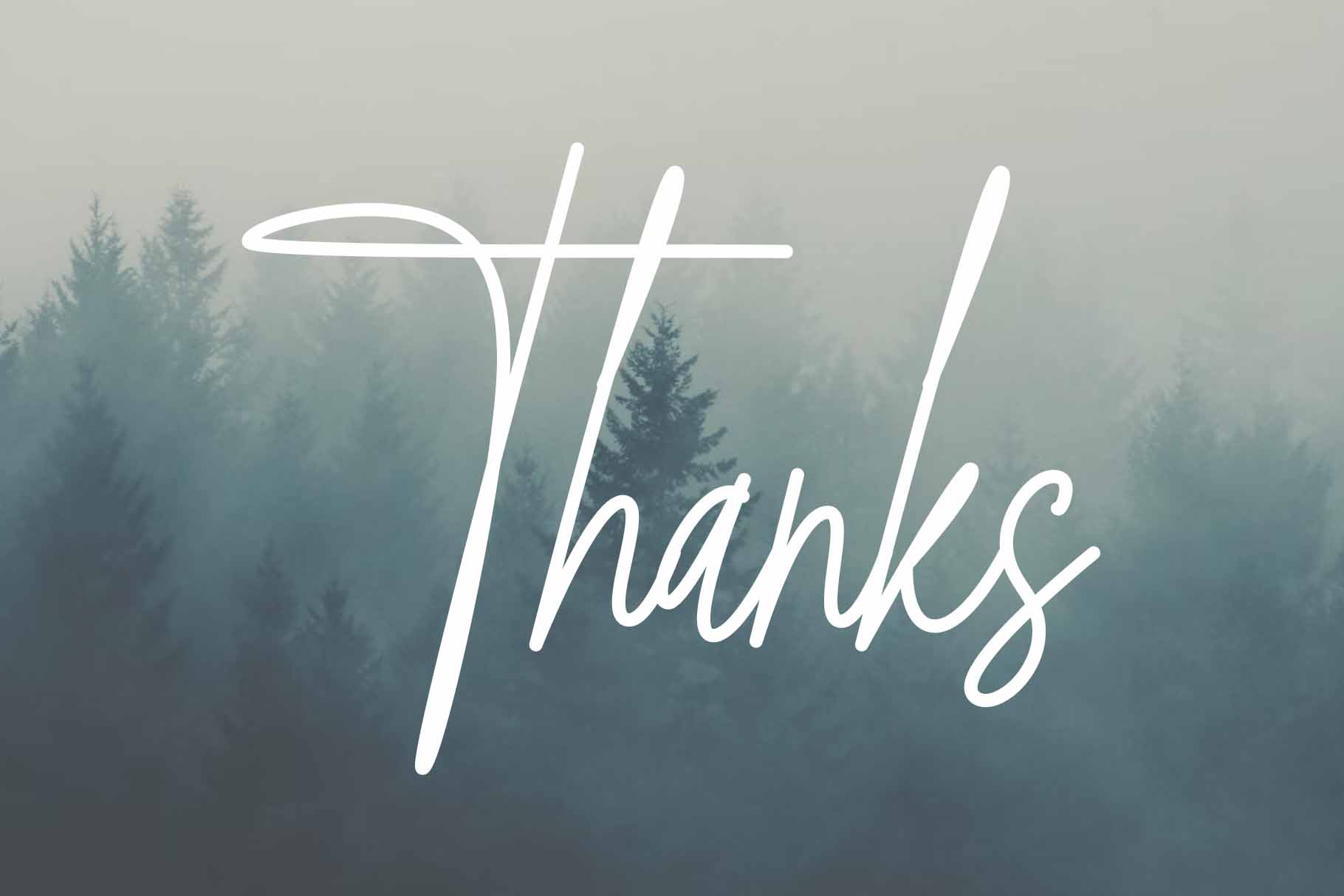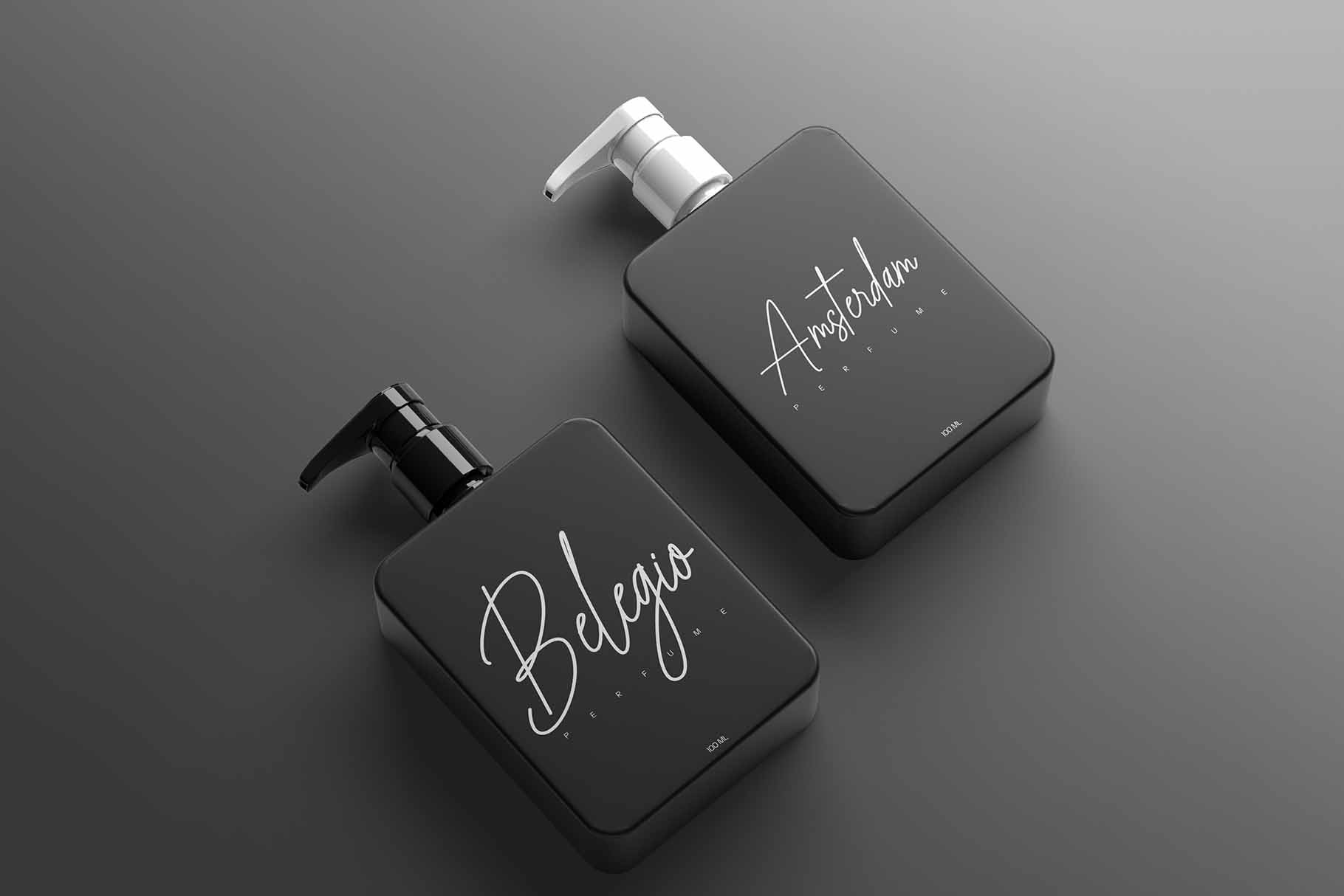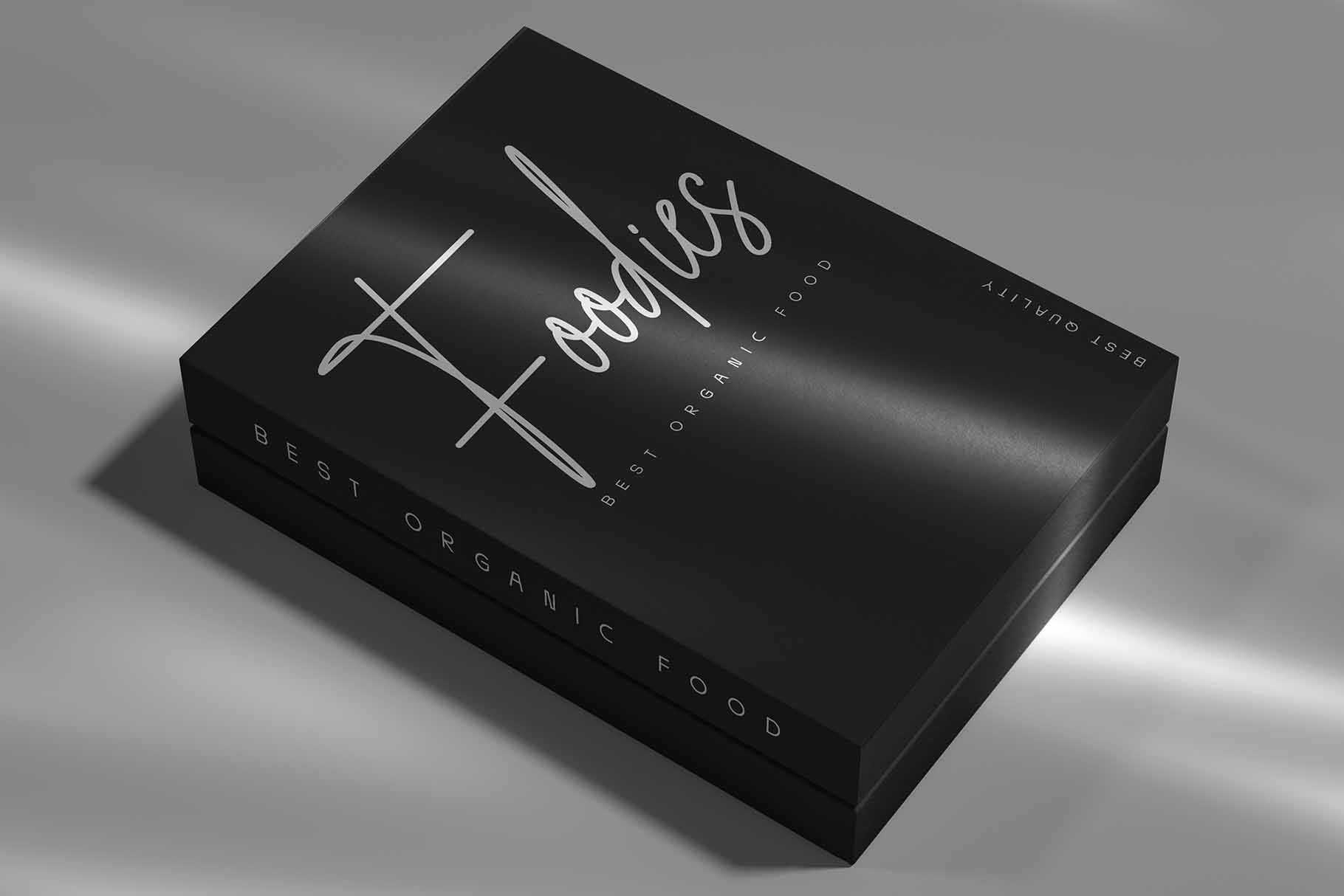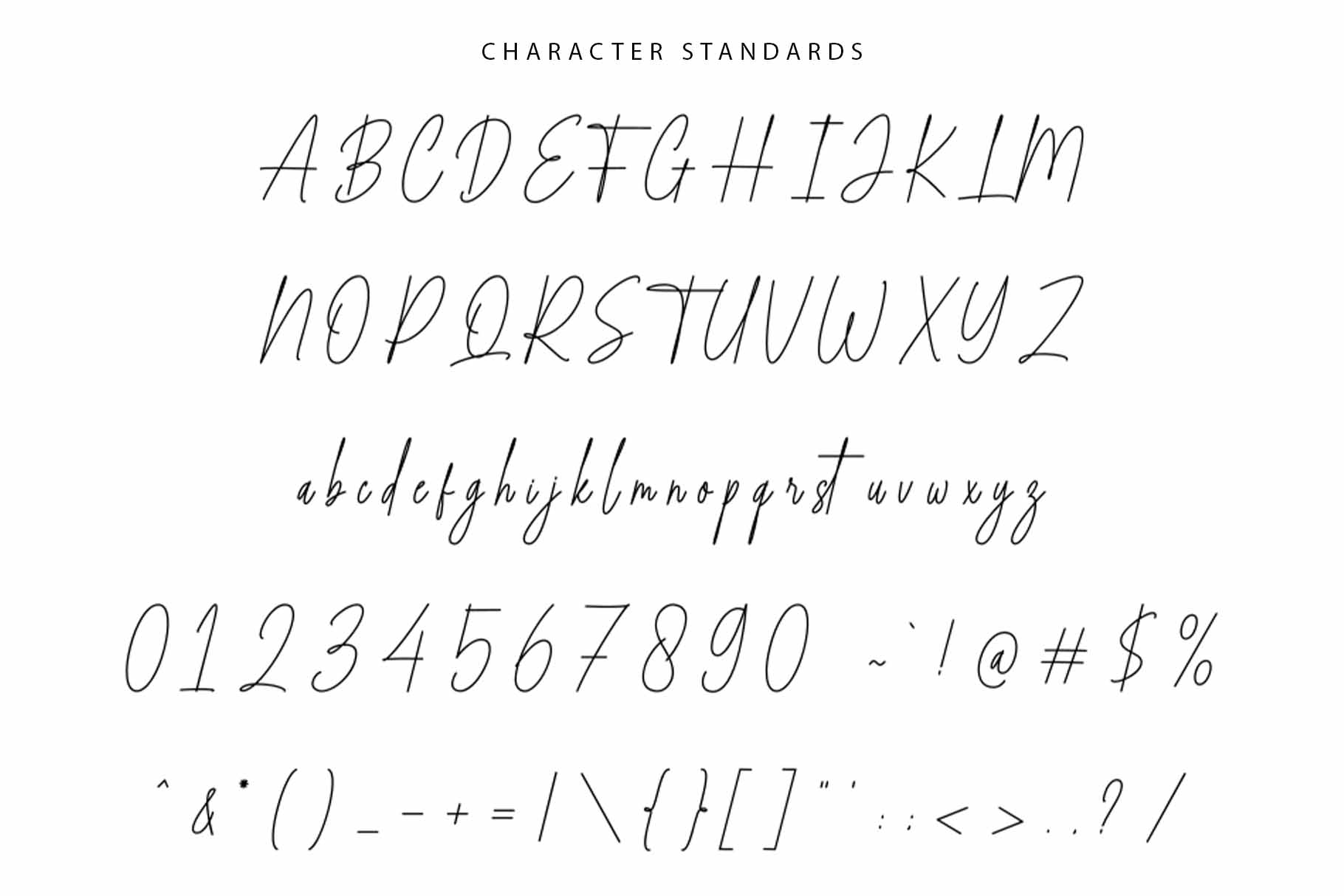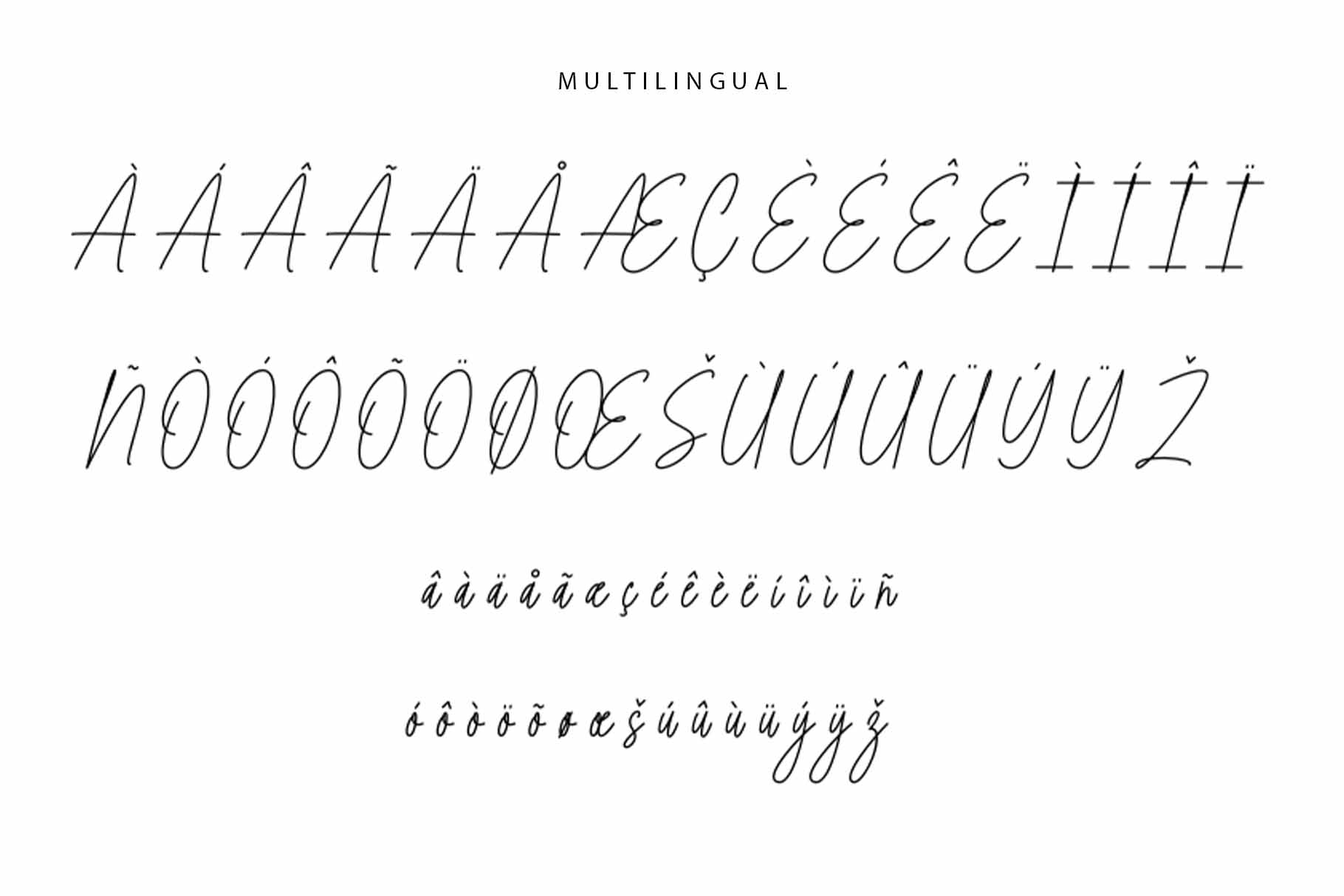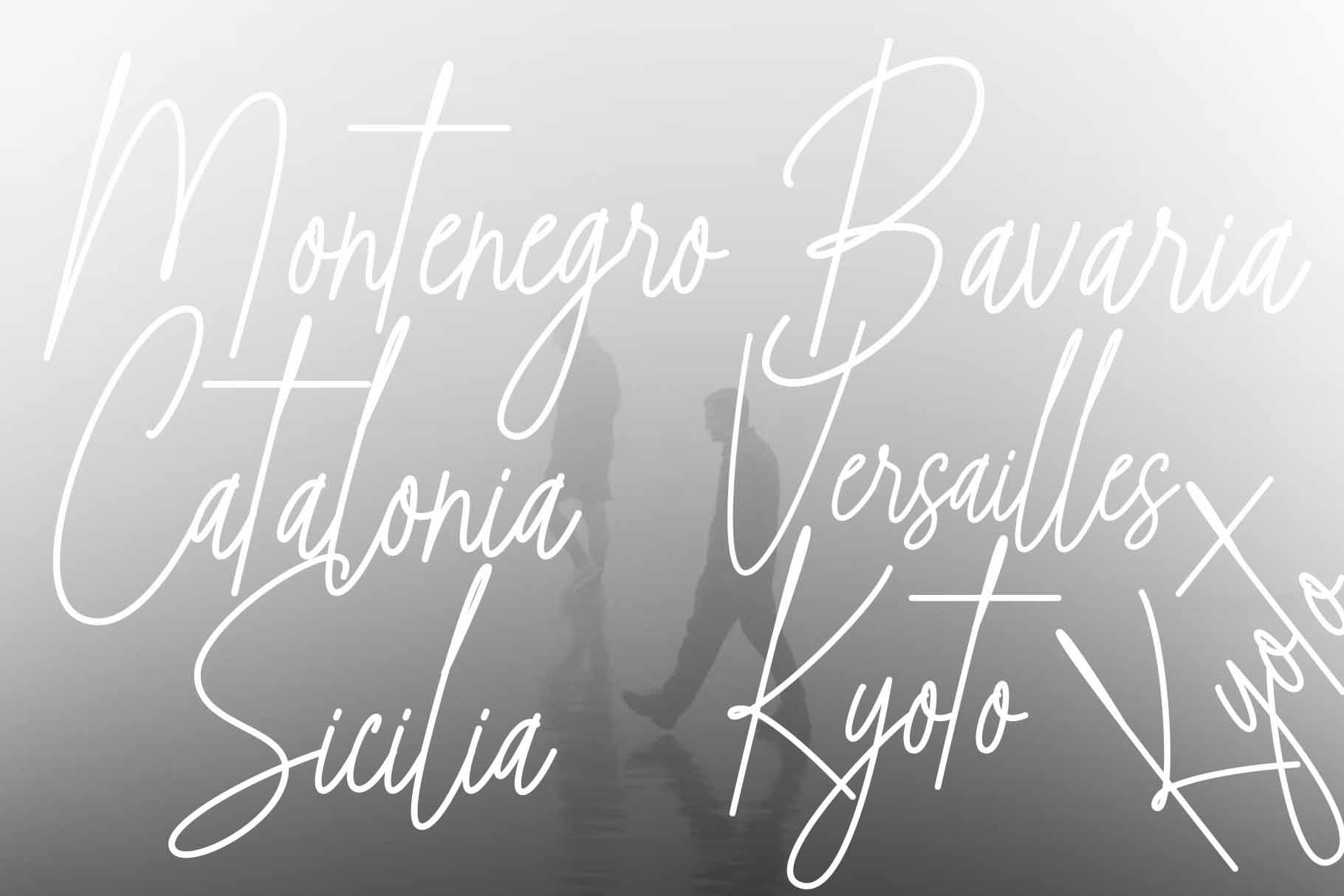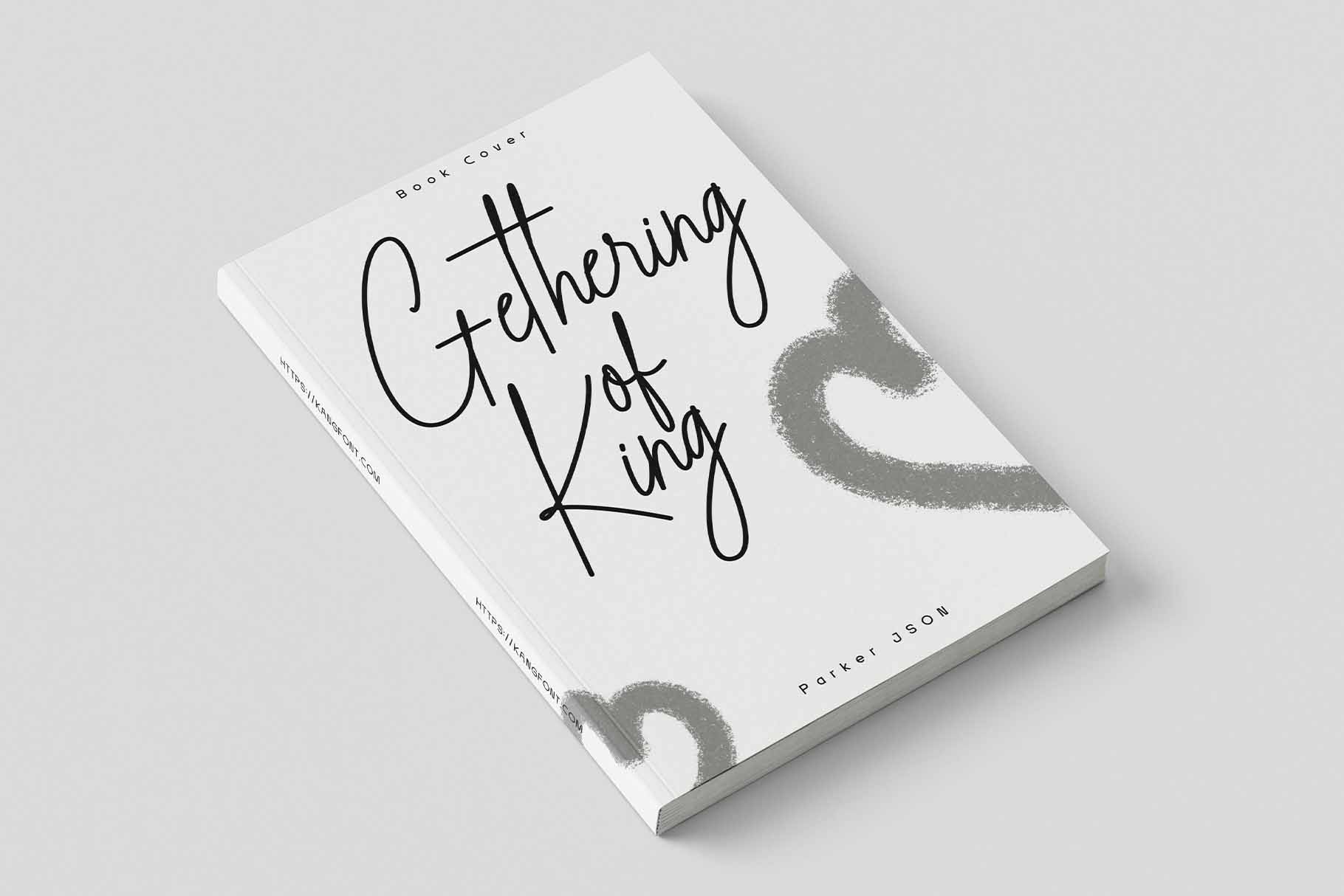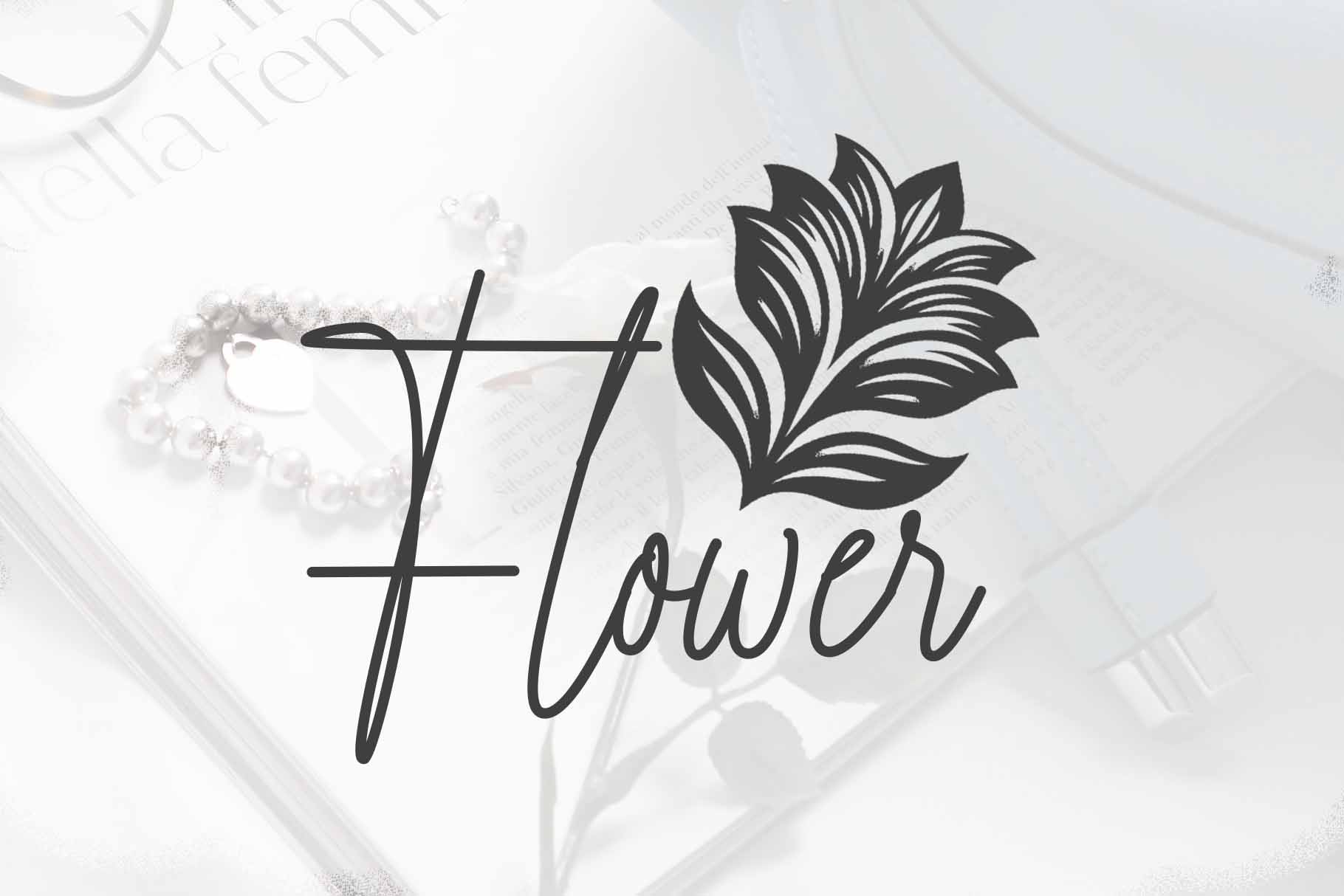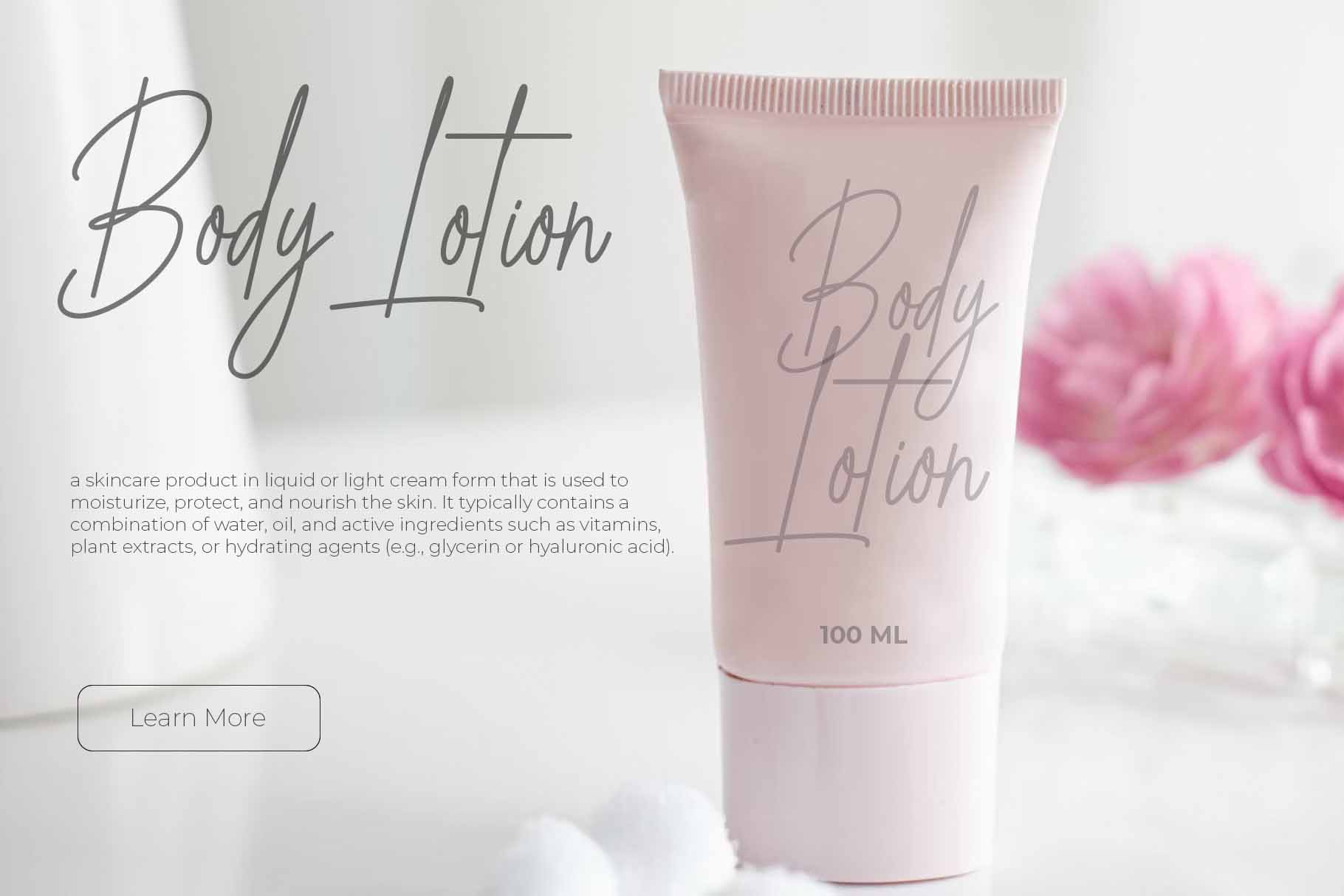
Qalbhu – Signature Font
About Qalbhu - Signature Font
Qalbhu is an elegant script font with a signature-style design, featuring smooth strokes and sophisticated letterforms. It exudes a modern, luxurious, and personal touch, making it perfect for various design needs such as wedding invitations, branding, logos, and other creative projects. With its graceful curves and stunning appearance, Qalbhu adds a professional yet artistic flair to any design.